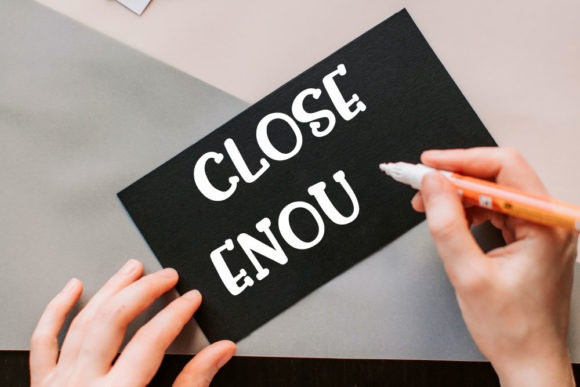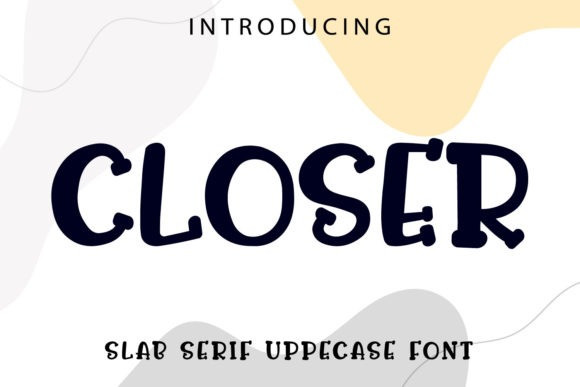
Closer Font
Closer Display Font is a fun slab serif font that brings its own unique style to any design project.. It is the best choice for creating simple yet beautiful logos, branding, T-shirt and quotes. Every letter has a unique and beautiful touch, which will make your designs come alive!.